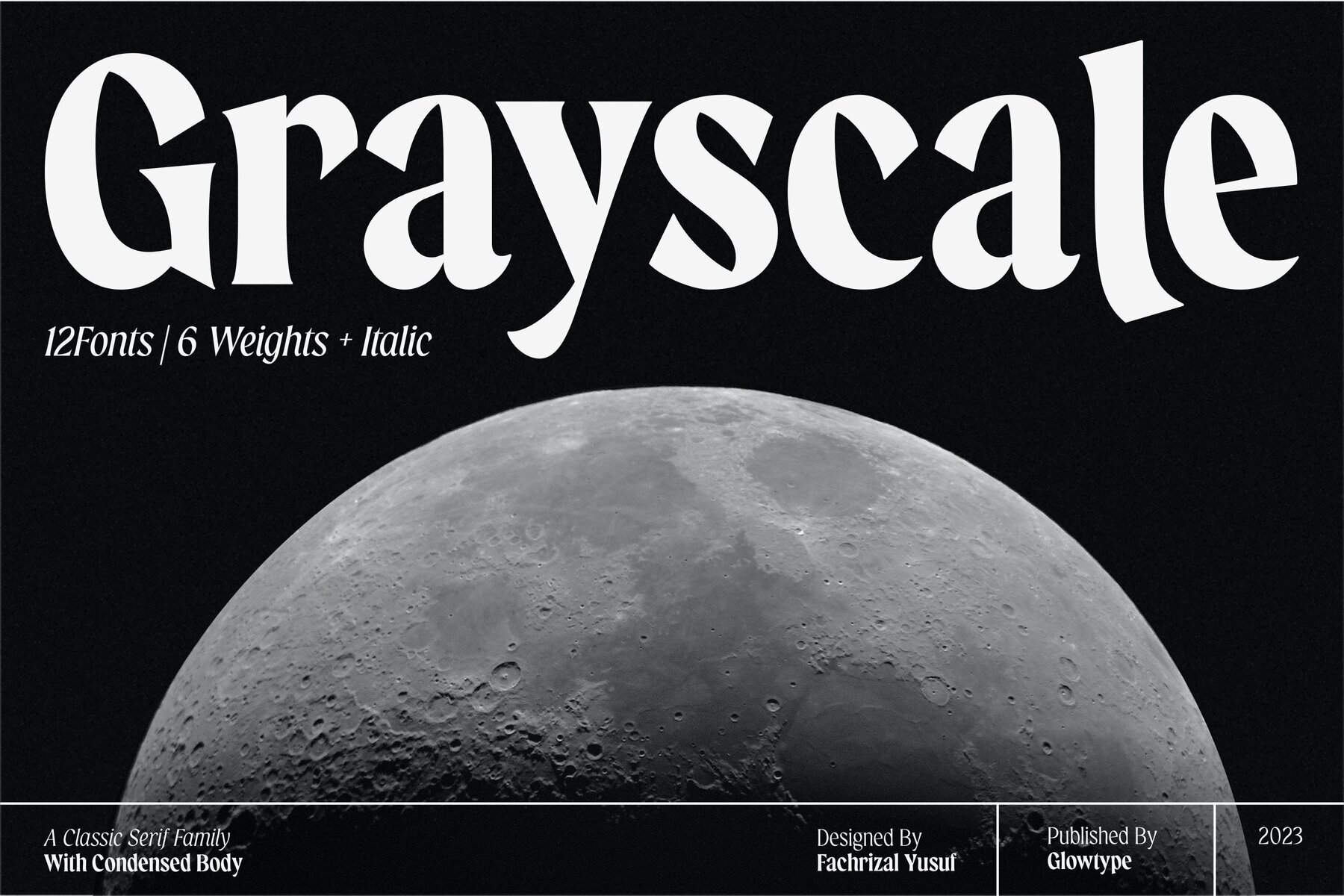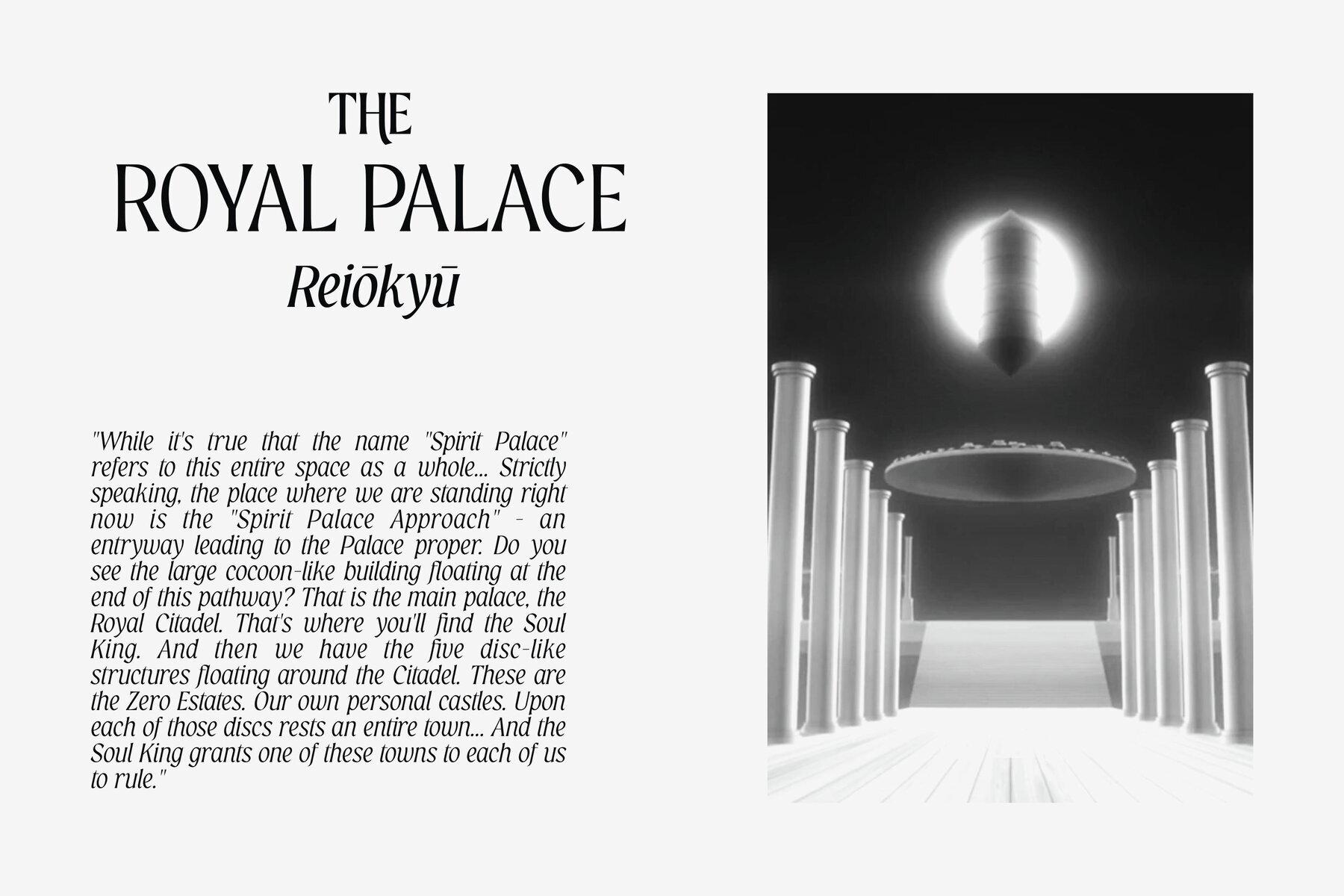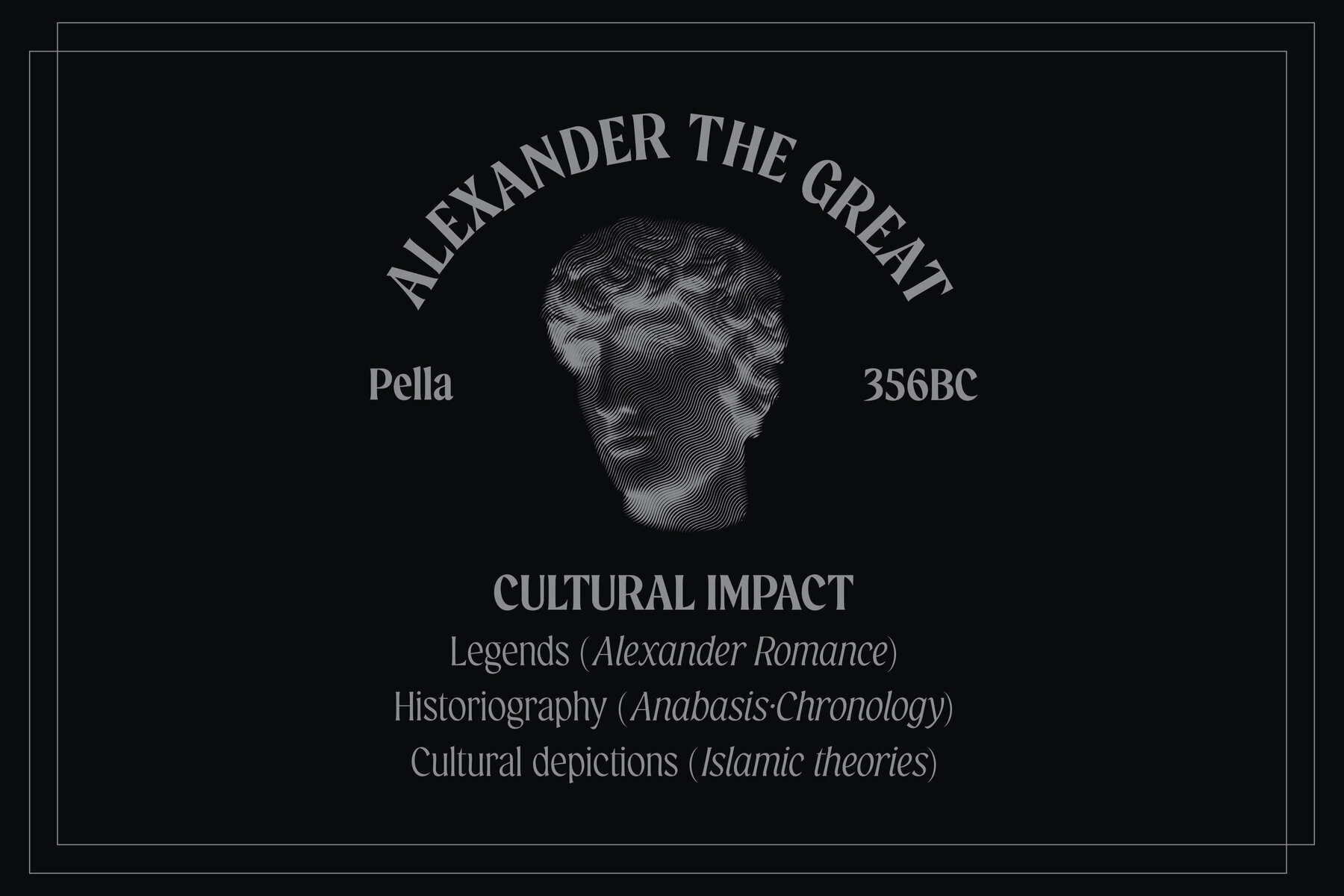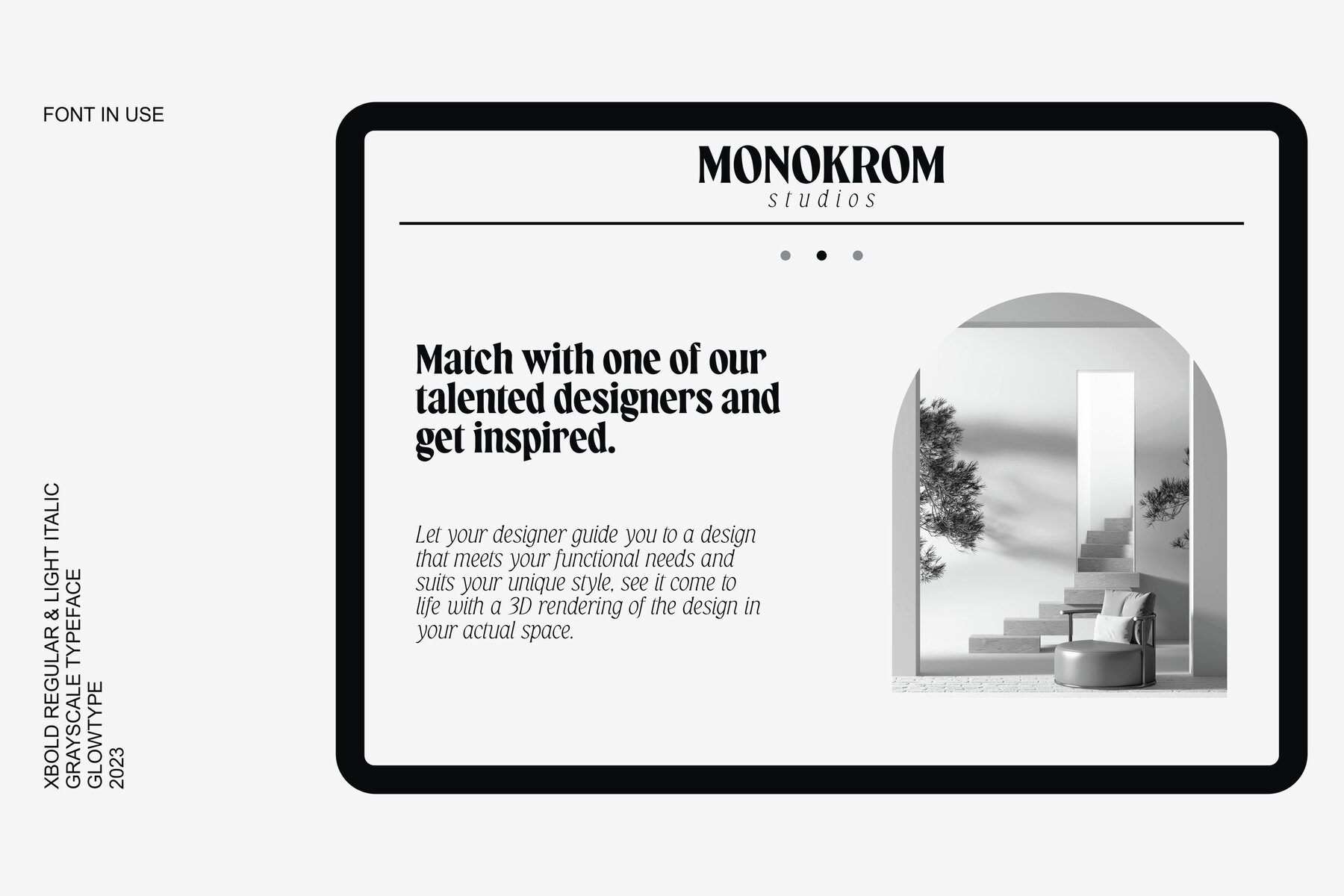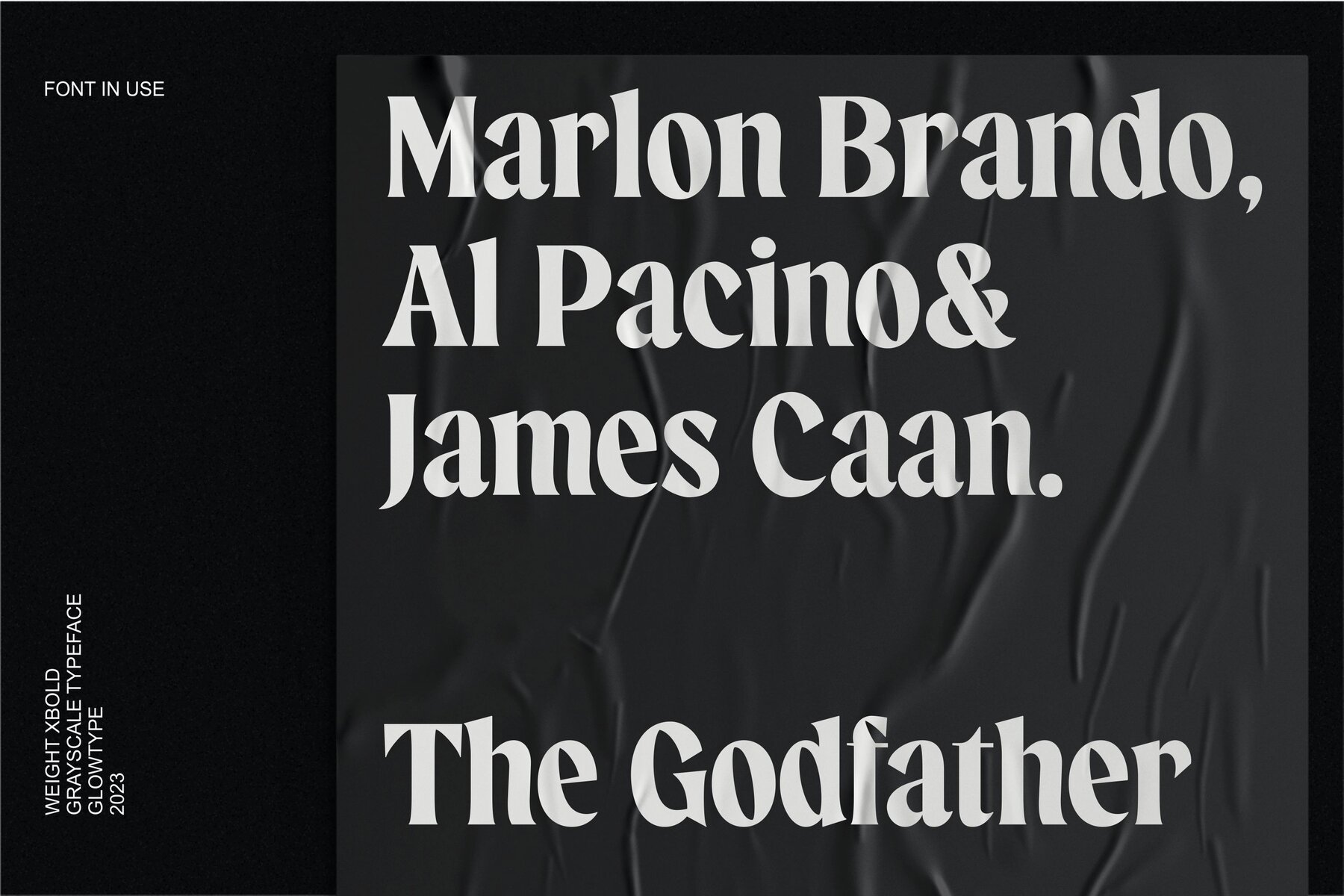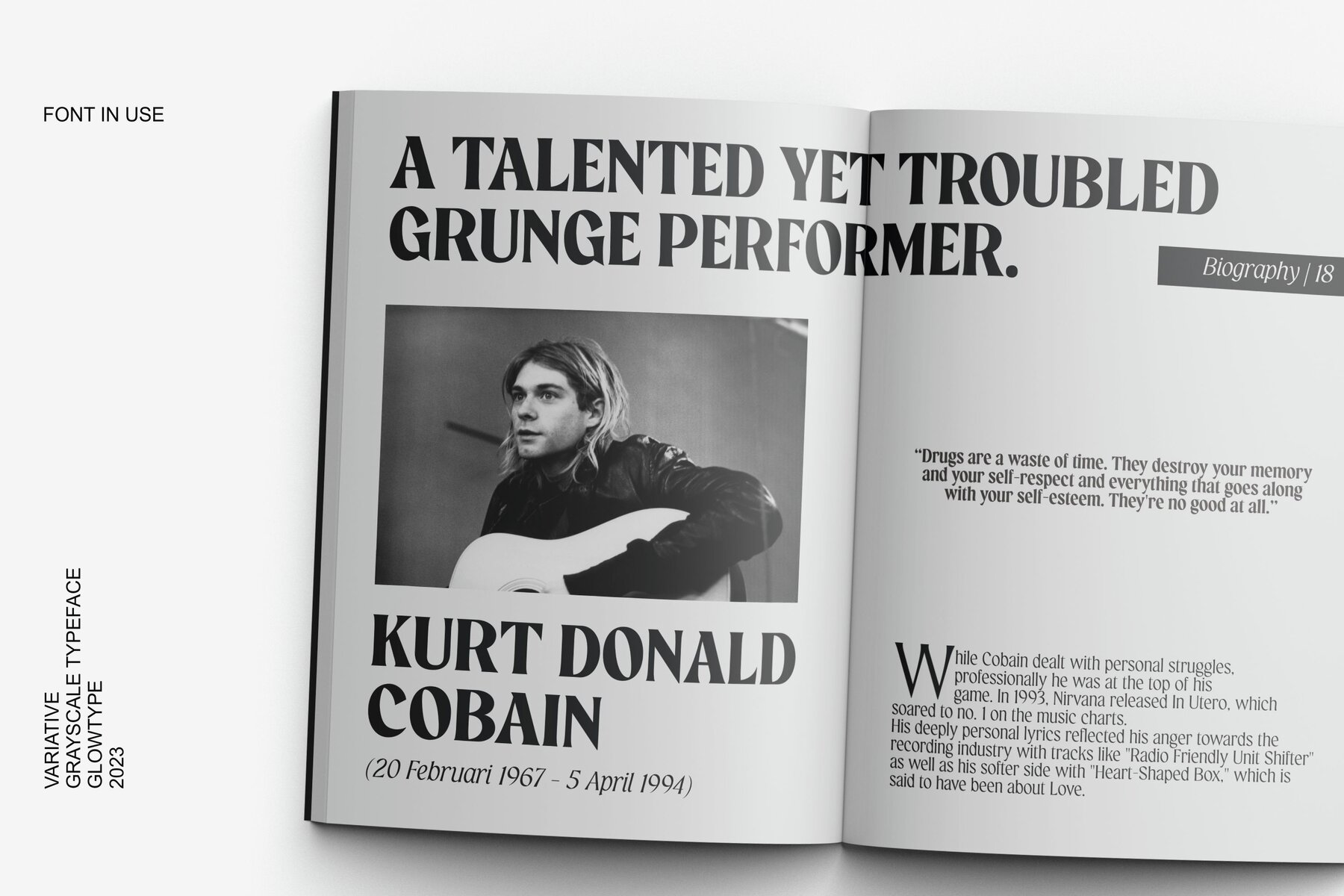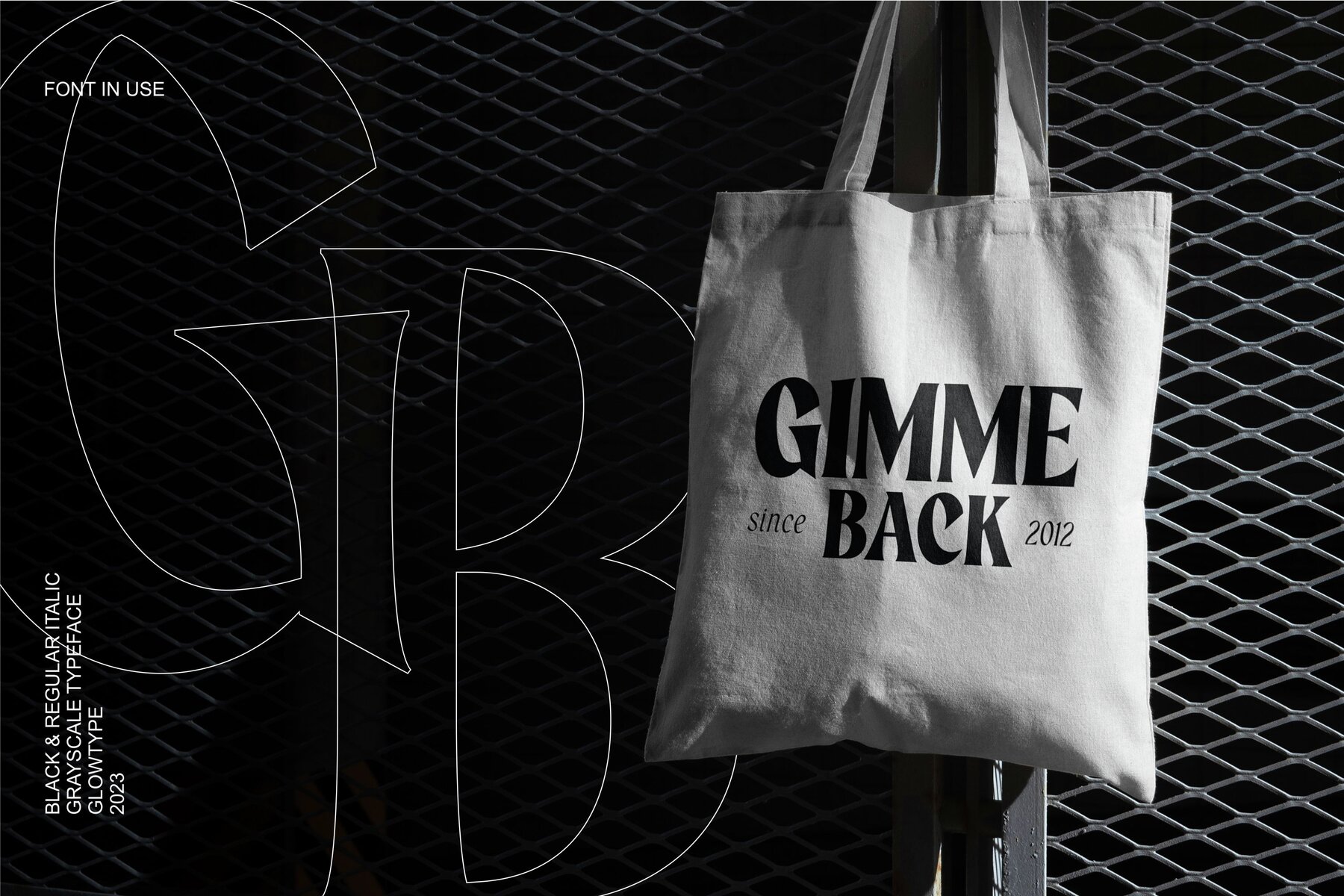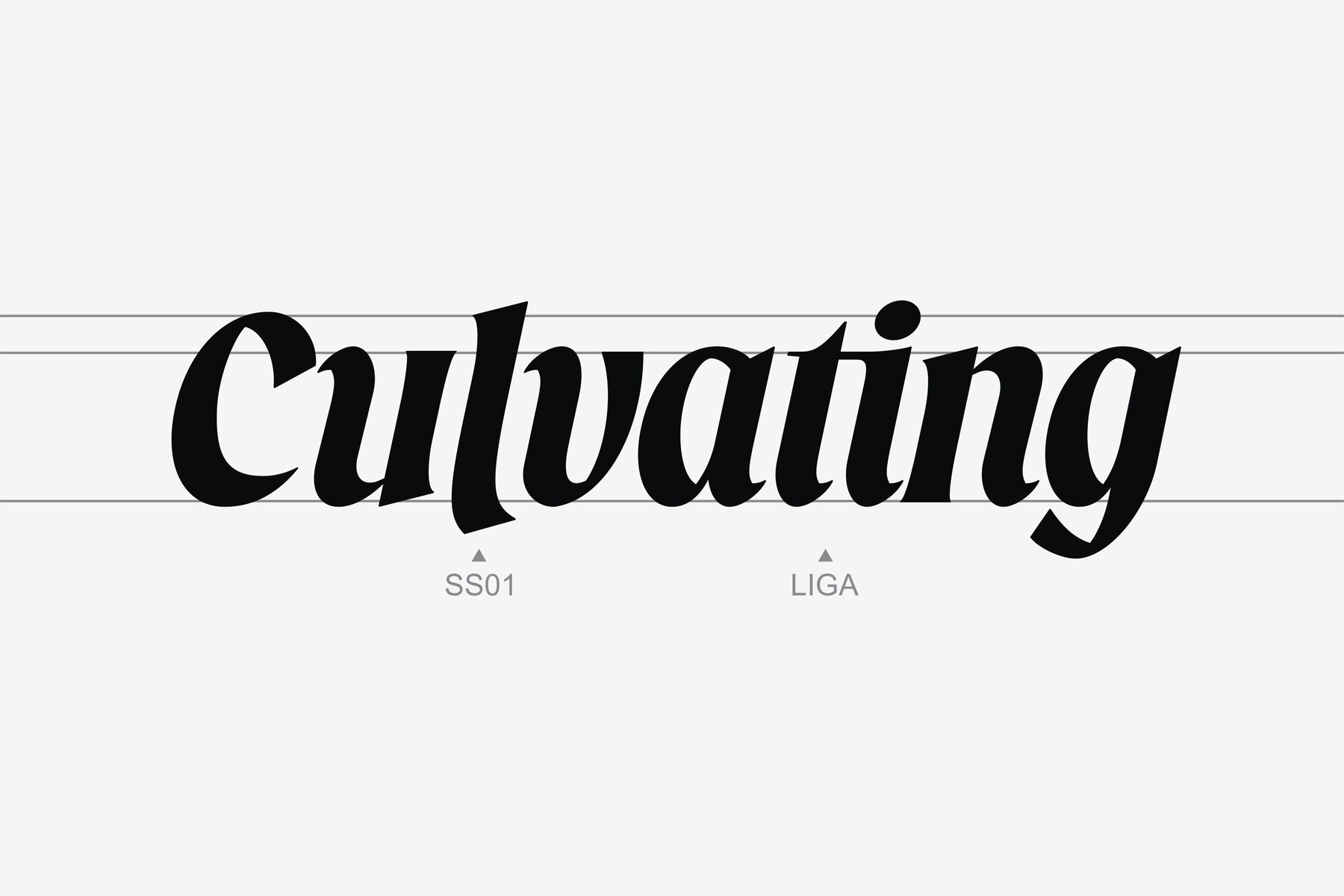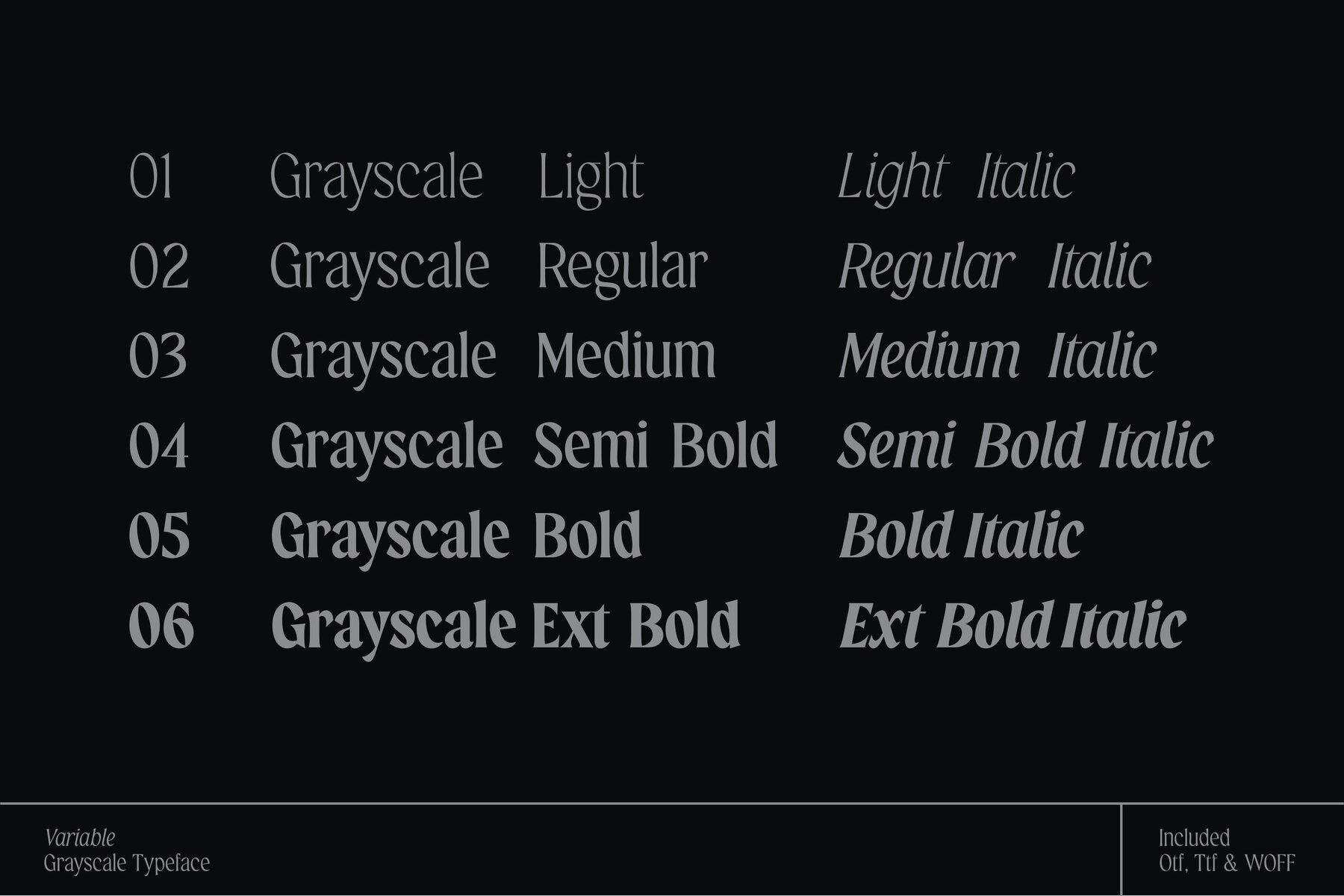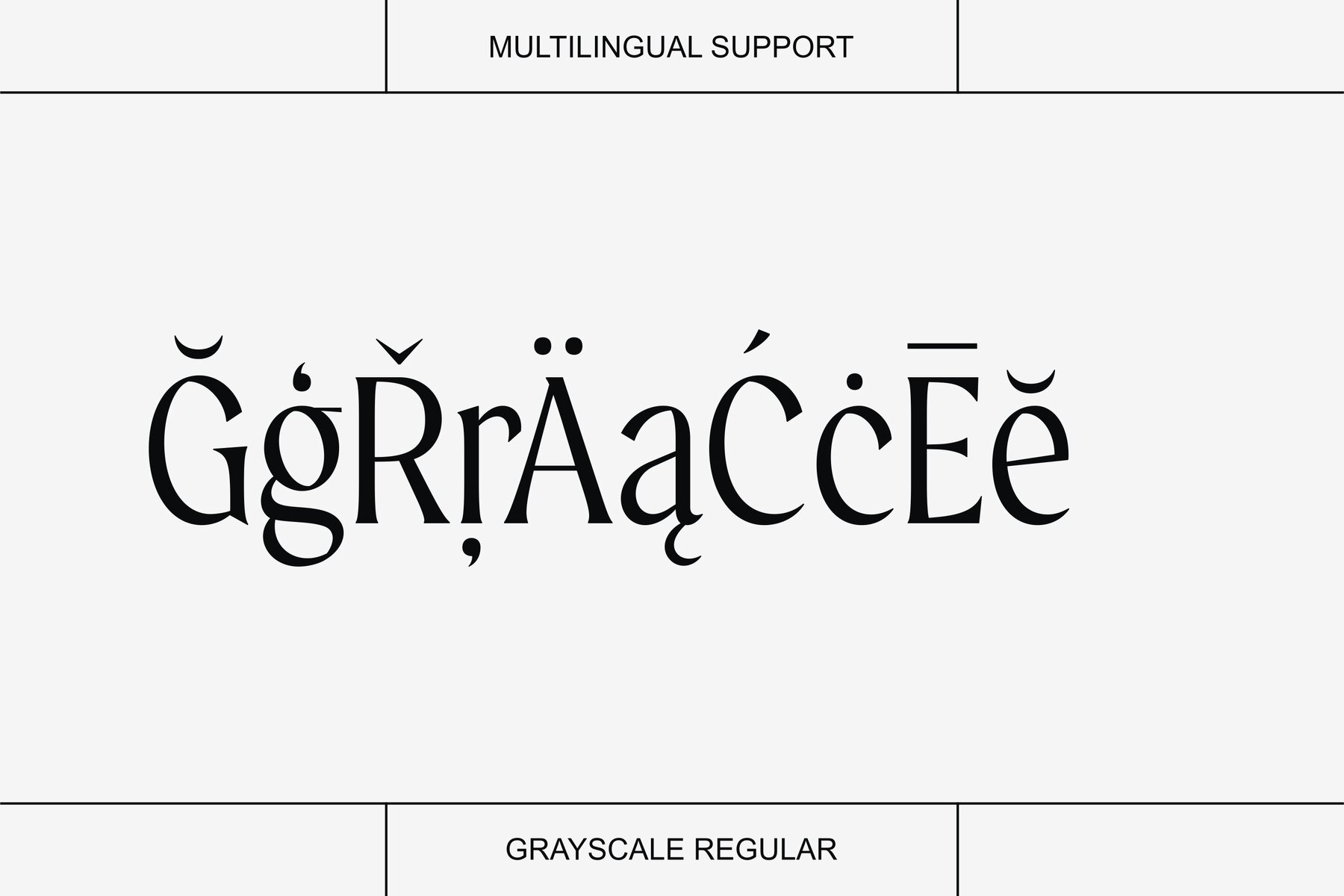
Grayscale Font
The Grayscale serif family blends timeless elegance with a modern edge, offering a striking blend of classic and contemporary styles. With its thick body and bold presence, this typeface commands attention in any setting. It's your go-to choice for making a powerful statement through editorial projects, logo designs, music album covers, and apparel branding.Grayscale Typeface: Classic Meets Glamour
Versatile and Bold